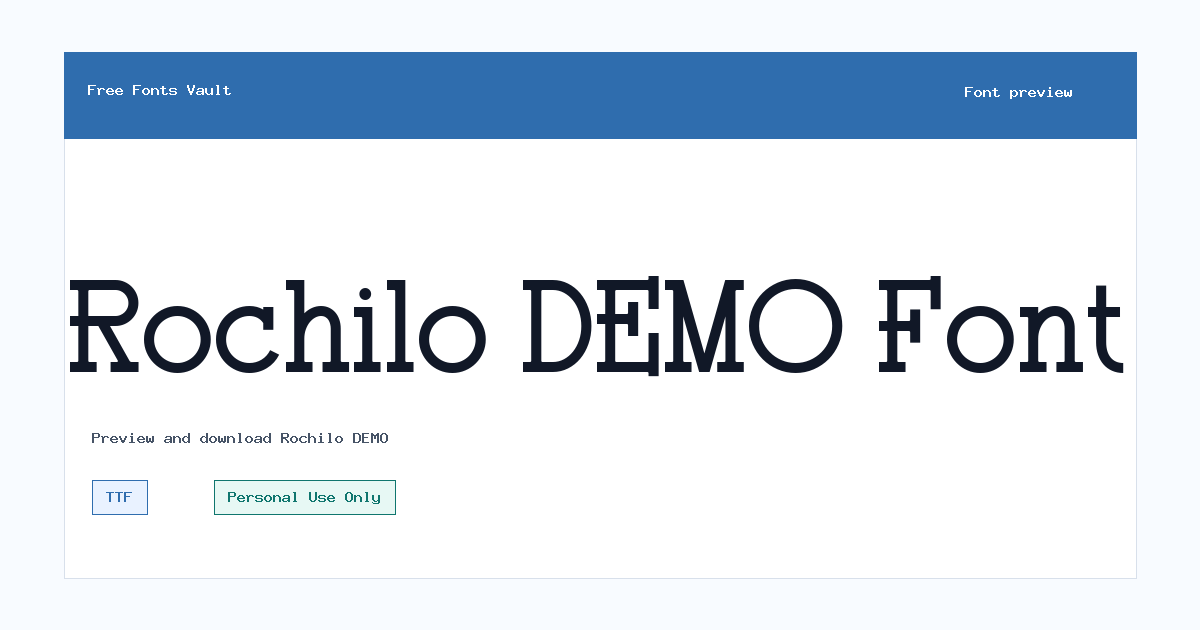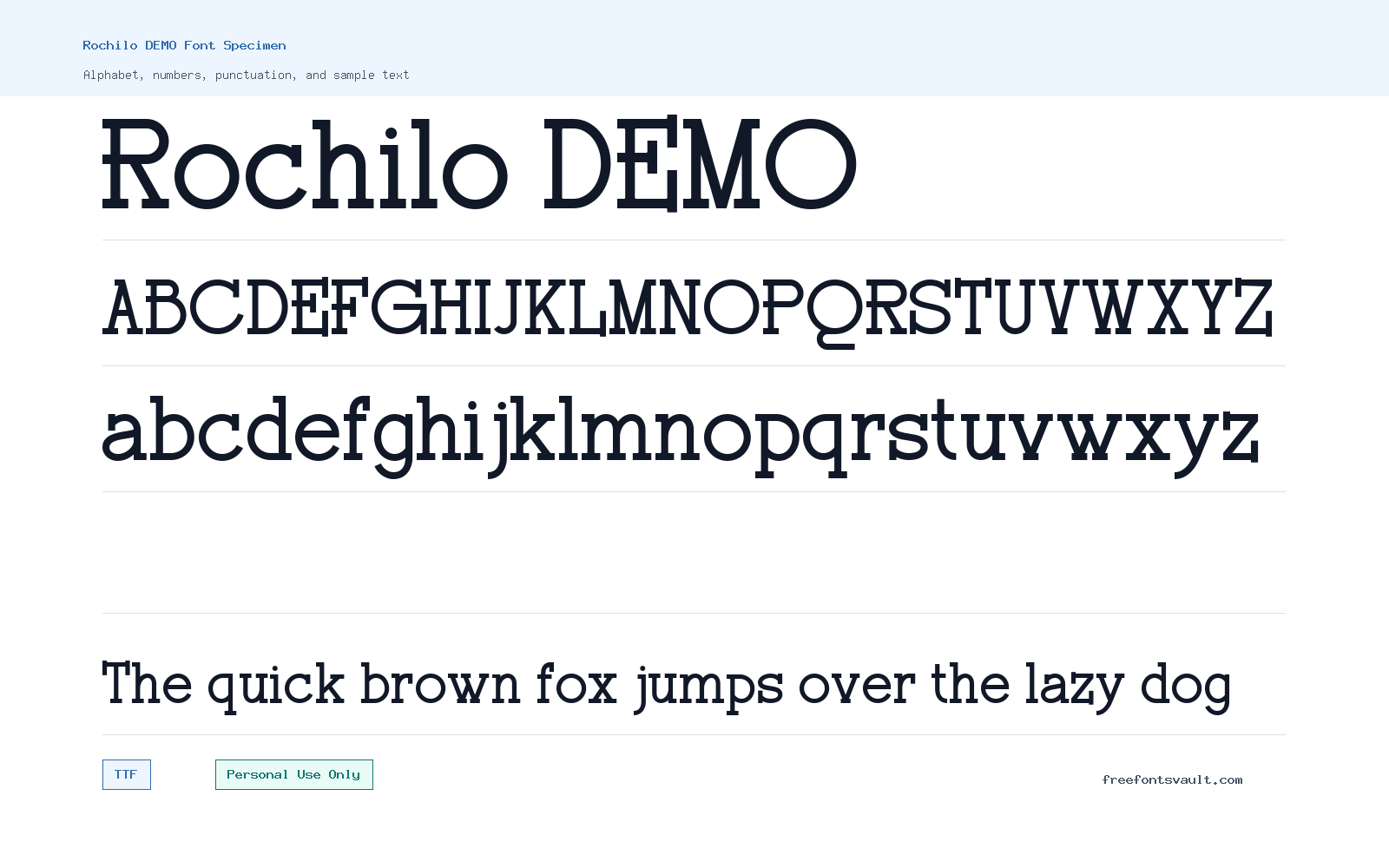
Rochilo DEMO
Rochilo DEMO font.
Rochilo DEMO is a personal-use display font from Say Studio. The license text identifies it as a slab serif style, making it most useful for bold headings, poster text, logo drafts, and visual concepts where the letter shapes need more presence than a plain body font.
About Rochilo DEMO
Rochilo DEMO is best treated as a display typeface rather than an all-purpose reading font. Its slab serif category suggests a stronger, more structured look, with the kind of weight and character that can help short words stand out in a title, label, badge, or headline. Because only the regular TTF style is listed, the cleanest way to test it is with short samples: brand names, event titles, packaging words, social graphics, and poster headings. Try uppercase and title case in the preview, then compare how the spacing feels at large and medium sizes. If the font feels too heavy or too decorative in a long paragraph, keep it for the main message and use a simpler companion font for supporting text.
For design work, Rochilo DEMO can be useful in early logo concepts, mood boards, apparel graphics, web mockups, YouTube thumbnails, quote posters, and editorial-style banners. Since the file is a regular-weight TTF, it should be easy to test in common design apps and many desktop projects. Use it where a strong slab-serif impression helps the text feel grounded and direct. For web mockups, check how it behaves in large hero headings and navigation labels, but do not rely on it for small captions until you have tested readability. If you are building a real website or client project, review the license first, because the font is marked for personal use only.
A practical way to use Rochilo DEMO is to keep the composition simple. Let the font carry the title, then pair it with a neutral sans serif or a quiet serif for descriptions, dates, prices, and calls to action. Avoid pairing it with another highly expressive display face unless the design is intentionally experimental. In posters and social graphics, give the letters enough breathing room and avoid squeezing long phrases into narrow spaces. If you are testing it for a logo, view the wordmark in black and white as well as in color; this helps show whether the shape of the letters is doing enough work without extra effects.
• Slab serif display style suited to short, prominent text
• Works best in larger sizes where the letter shape can be seen clearly
• Useful for testing titles, logo drafts, posters, badges, and web hero mockups
• Poster titles and event graphics
• Logo drafts and wordmark experiments
• Packaging mockups and label concepts
• Social media graphics and quote cards
• Website hero headings and landing-page mockups
• Personal design practice and typography testing
Rochilo DEMO is credited to Say Studio, which is also listed as the foundry. No separate designer website is listed.
Use Rochilo DEMO for short display text first. Test brand names, poster headlines, and title layouts in the preview before downloading. Pair it with a simple sans serif or readable serif for body copy, and avoid using it for long paragraphs unless the spacing and readability still feel comfortable.
What kind of font is Rochilo DEMO?
The license text identifies Rochilo as a slab serif font. That makes it better suited to display uses such as headlines, posters, logo drafts, and short titles than long body text.
Who designed Rochilo DEMO?
Rochilo DEMO is credited to Say Studio. Say Studio is also listed as the foundry.
What should I pair with Rochilo DEMO?
Pair it with a plain sans serif or a calm serif for supporting text. Let Rochilo DEMO handle the main title, then keep descriptions, captions, and navigation simple.
Is Rochilo DEMO good for website text?
It can work well for large website headings or hero mockups. For paragraphs, menus, and small captions, test readability carefully or use a simpler companion font.